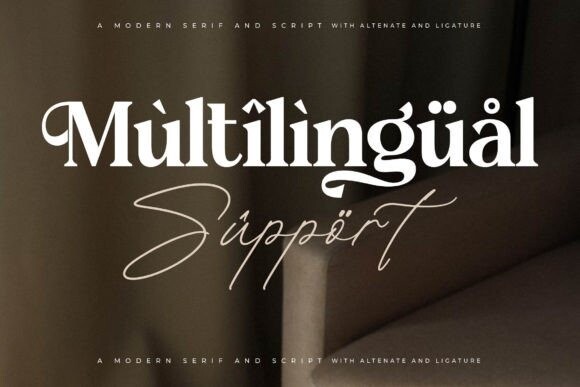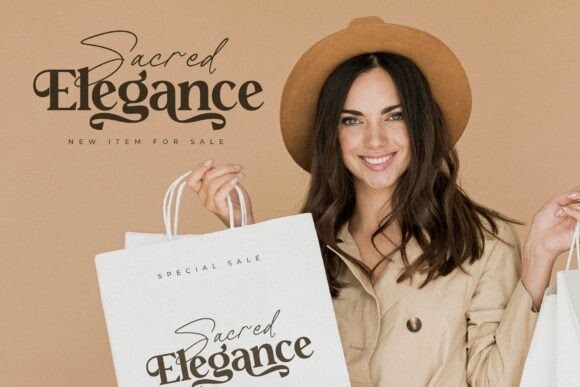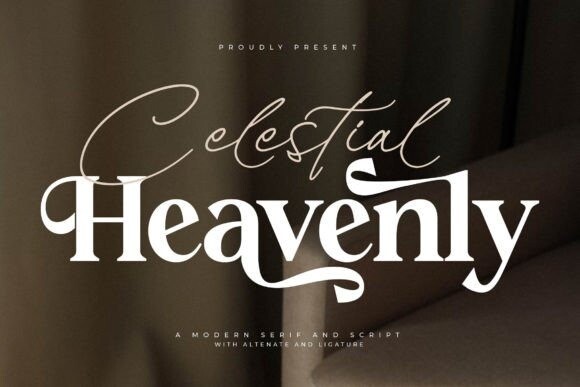
Celestial Heavenly Font
Celestial Heavenly Font Duo a serif and script typeface that has its own unique style & modern look.
This typeface is perfect for an elegant & luxury logo, book or movie title design, fashion brand, magazine, clothes, lettering, quotes, and so much more.